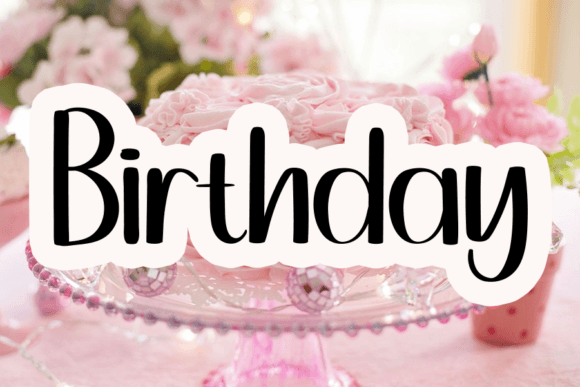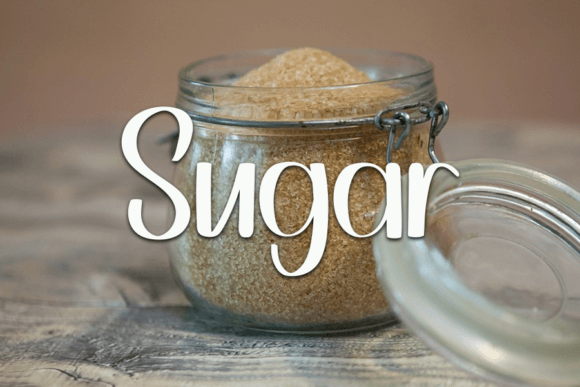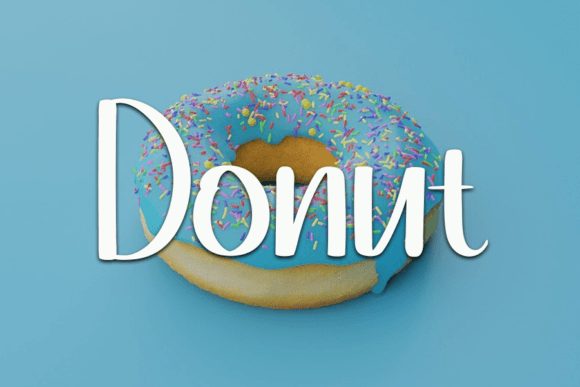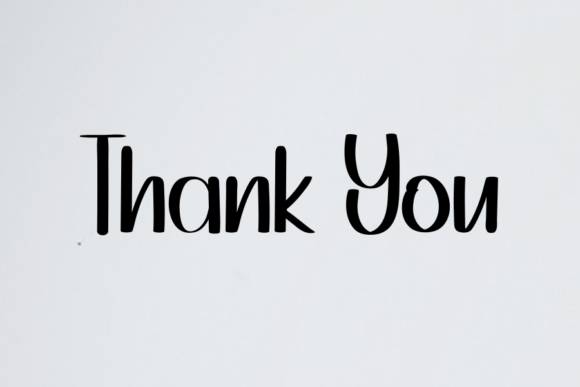
The Sweet Spot: Discovering the Charm of Candy Font
I still remember the design project that led me to discover the delightful Candy font. I was working on a luxury brand’s packaging, and my client requested a font that exuded elegance and whimsy. I scoured the internet, tried out numerous fonts, but none seemed to fit the bill. That was until I stumbled upon Candy – a sweet and beautiful handwritten font that instantly captured the essence of what I was looking for.
Featuring characters that dance along the baseline, Candy font adds a touch of sophistication and playfulness to any design project. In this article, I’ll share my experience with Candy font, its features, and how to make the most of it in various design platforms.
What I Love About Candy Font
- ✨ Elegant and refined appearance, perfect for luxury brands
- ✅ Beautifully crafted characters that add a touch of whimsy
- 💃 Highly versatile, suitable for various design projects, from packaging to digital media
- 📚 Extensive character set, including support for multiple languages
While Candy font is an excellent choice, there are a few things to keep in mind:
- ⚠️ Some characters may not work well in very small font sizes, so it’s best to use it at larger sizes (from 18px and above)
- 🤔 Limited availability of condensed or italic versions, which might limit its use in certain design contexts
The Designer Inspiration Behind Candy Font
Candy font was designed with the intention of creating a beautiful, elegant script font that captures the whimsy and playfulness of handwritten typography. The designer aimed to create a font that’s both refined and approachable, making it suitable for a wide range of design projects.
| Font Name | Candy Font |
| Author | ArtLine Design |
Q: What type of designs is Candy font best suited for?
A: Candy font is versatile and can be used for various design projects, including luxury packaging, branding, digital media, and more.
Q: Does Candy font support multiple languages?
A: Yes, Candy font has an extensive character set, including support for multiple languages.
Q: Can I use Candy font in print and digital media?
A: Absolutely! Candy font is suitable for both print and digital media, making it a great choice for a wide range of design projects.